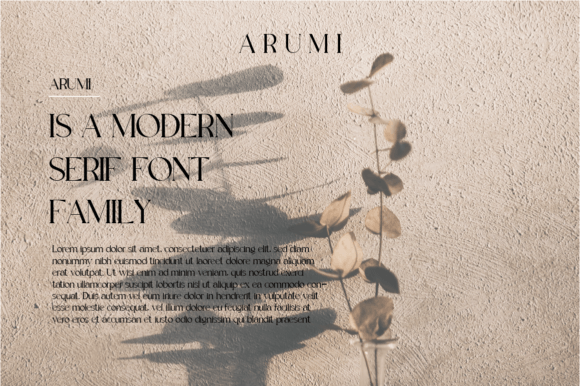
Introducing Arumi Font: Elevate Your Designs with Elegance and Sophistication
In the world of typography, fonts play a crucial role in conveying the tone and personality of a brand or design. Among the numerous fonts available, Arumi Font stands out as a modern serif font that exudes elegance and sophistication. With its fancy and refined aesthetic, Arumi Font is an ideal choice for a wide range of projects, from signature and stationery to logo design, wedding typography, and more.
Arumi Font is a versatile typeface that can be used across various platforms and design applications. Its adaptability makes it an excellent choice for:
- Signature and stationery design
- Logo creation and branding
- Wedding typography and invitations
- Magazine and book covers
- Website headers and digital design
- Clothing and apparel branding
- Packaging design and labeling
- Fashion-related editorial design and displays
- Logotype and digital design
- Document type and print materials
Whether you’re working on a personal project or a client’s design brief, Arumi Font is sure to impress. Its modern and professional aesthetic makes it perfect for designers and crafters looking to elevate their designs.
Arumi Font’s unique characteristics make it an excellent choice for various design applications. Some of the areas where Arumi Font excels include:
- Magazine headers and titles
- Clothing and apparel branding
- Brochures and catalogs
- Packaging and labeling
- Apparel projects and fashion design
- Signature and logo design
- Album covers and music branding
- Social media graphics and advertisements
Why Choose Arumi Font?
Arumi Font offers several benefits that make it an attractive choice for designers and crafters. Some of the reasons to choose Arumi Font include:
- Modern and professional aesthetic
- Elegant and sophisticated design
- Versatile and adaptable
- Perfect for both digital and print applications
Tips for Using Arumi Font Effectively
To get the most out of Arumi Font, here are some tips for using it effectively:
- Pair Arumi Font with complementary fonts to create visual interest
- Use Arumi Font for headlines and titles to add elegance and sophistication
- Experiment with different colors and textures to add depth and contrast
- Consider using Arumi Font for both digital and print applications to maintain consistency
In conclusion, Arumi Font is a modern serif font that offers elegance and sophistication for a wide range of design applications. Its versatility, adaptability, and professional aesthetic make it an excellent choice for designers and crafters looking to elevate their designs. Whether you’re working on a personal project or a client’s design brief, Arumi Font is sure to impress.